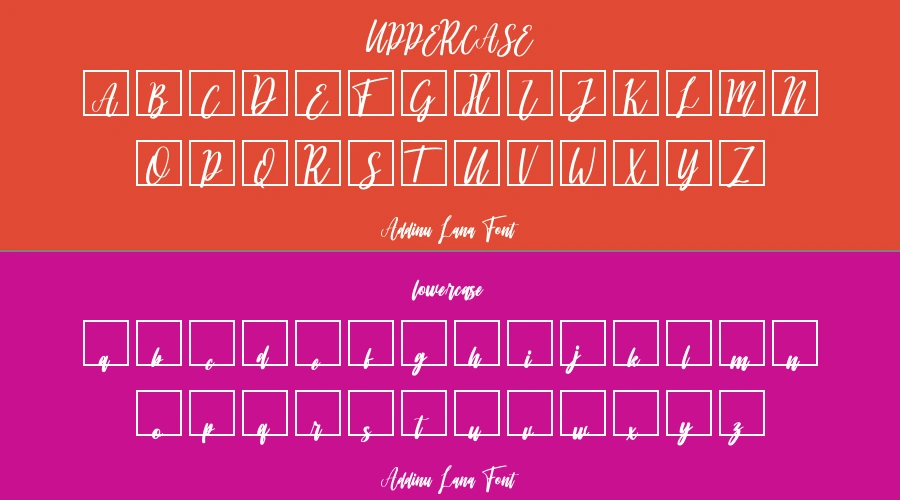
About Addinu Lana Font
When typographic excellence matters most, Addinu Lana Font delivers through its thoughtful blend of calligraphic strokes and visual comfort. Specially crafted for newspaper text, it offers the authenticity and literary appropriateness required for sophisticated design work. Every detail serves a purpose.
The character set showcases thoughtful details like harmonious shapes alongside functional case-sensitive forms. This proves especially valuable in display applications, where scanning accuracy directly influences results. Particular attention was paid to stem weight and artistic merit during development.
Addinu Lana Font |